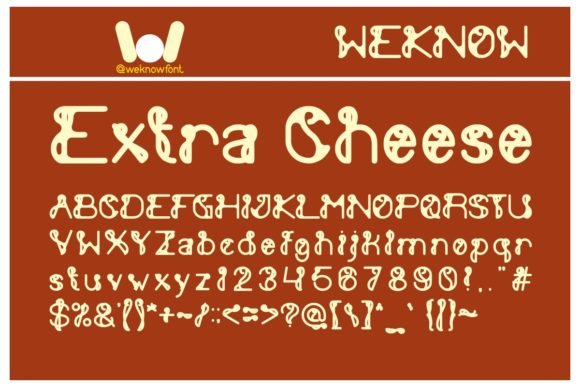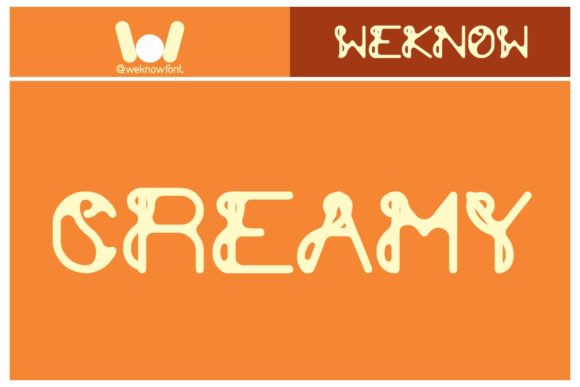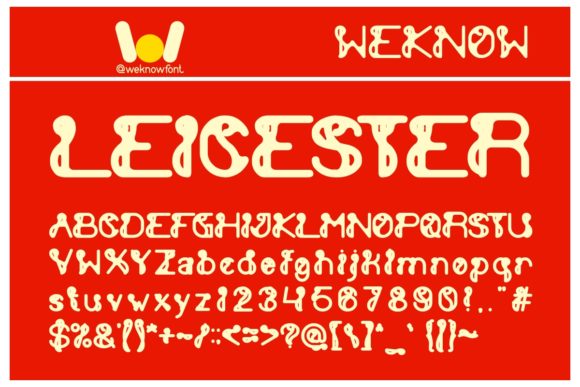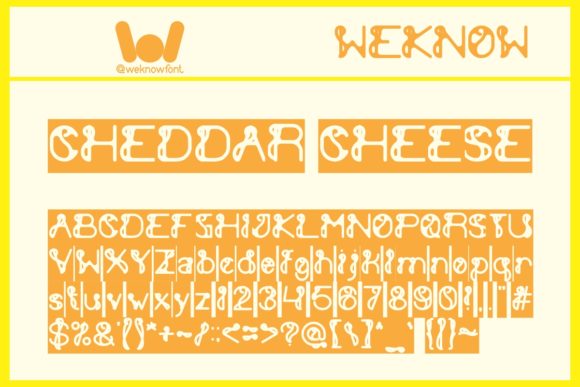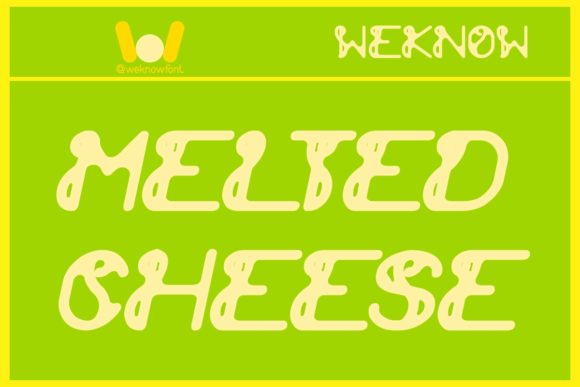
Get Ready to Melt Hearts with the Extra Cheese Font
Have you ever stared at a blank page, desperately searching for the perfect font to bring your creative idea to life? We’ve all been there. For designers, finding that one special font can be the difference between a project that’s just okay and one that’s truly unforgettable.
That’s where the Extra Cheese Font comes in – a simple yet unique display font designed to add a touch of whimsy and personality to your designs. With its playful, hand-drawn feel, this font is sure to make your creative ideas stand out from the crowd.
Whether you’re working on a branding project, a social media campaign, or just a fun design experiment, the Extra Cheese Font is a valuable addition to your toolkit. Its versatility and charm make it a must-have for designers looking to add a little extra oomph to their work.
Extra Cheese Font Key Features
- Font Family: Extra Cheese is a custom font designed specifically for use in digital and print media.
- Unique Characteristics: Extra Cheese features a unique blend of modern and vintage elements, making it perfect for creative projects and designs that require a touch of personality.
Designer Review: Extra Cheese Font
Overall, I think Extra Cheese Font is a unique and playful font that can be used for certain projects where a casual, friendly tone is needed. ✨ I love the creative and quirky feel it gives to text. The font is well-suited for social media, advertisements, and other marketing materials where you want to grab attention.
- The font’s irregularity and personality make it stand out from more traditional fonts. ✨
- It’s great for adding a touch of whimsy to text-based projects. ✨
- The font is highly customizable, which is a major plus for designers who want to fine-tune their designs. ✨
Limits and Considerations:
- ⚠️ The font can be overwhelming if used in large quantities or as the primary font for a project.
- ⚠️ Some users may find the font difficult to read due to its unconventional design.
- ⚠️ The font may not be suitable for formal or professional projects where a more traditional font is preferred.
Overall, Extra Cheese Font is a fun and creative option for designers looking to add some personality to their projects. While it may not be suitable for every project, it can be a great choice for those looking to add a touch of whimsy and playfulness to their designs.
Getting the Most Out of the Extra Cheese Font
To get the most out of the Extra Cheese Font, use it sparingly to add a touch of whimsy and fun to your designs. This font is best suited for casual, creative projects like social media posts, blog titles, and children’s book covers.
The Extra Cheese Font is commonly used for:
– Social media posts and captions
– Blog titles and headings
– Children’s book covers and illustrations
– Casual, creative projects